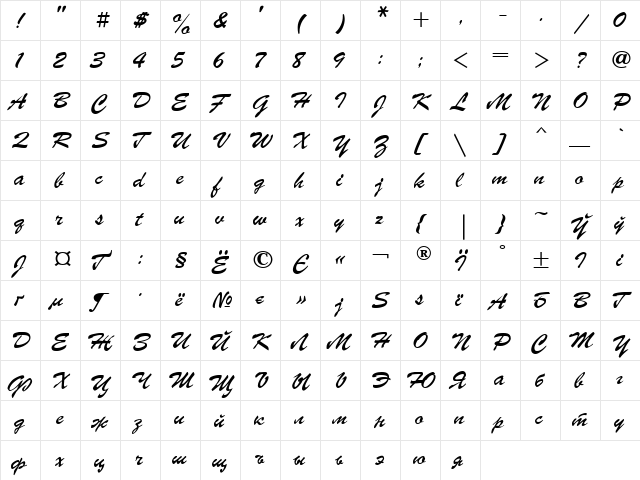
Parsek Cyrillic
Design Context for Parsek Typeface
Parsek takes a measured approach to typography — its balanced proportions and neutral character make it a reliable workhorse for both digital and print work.
Pro Tip: Pair Parsek with a font of contrasting weight or personality to build a more expressive typographic hierarchy.